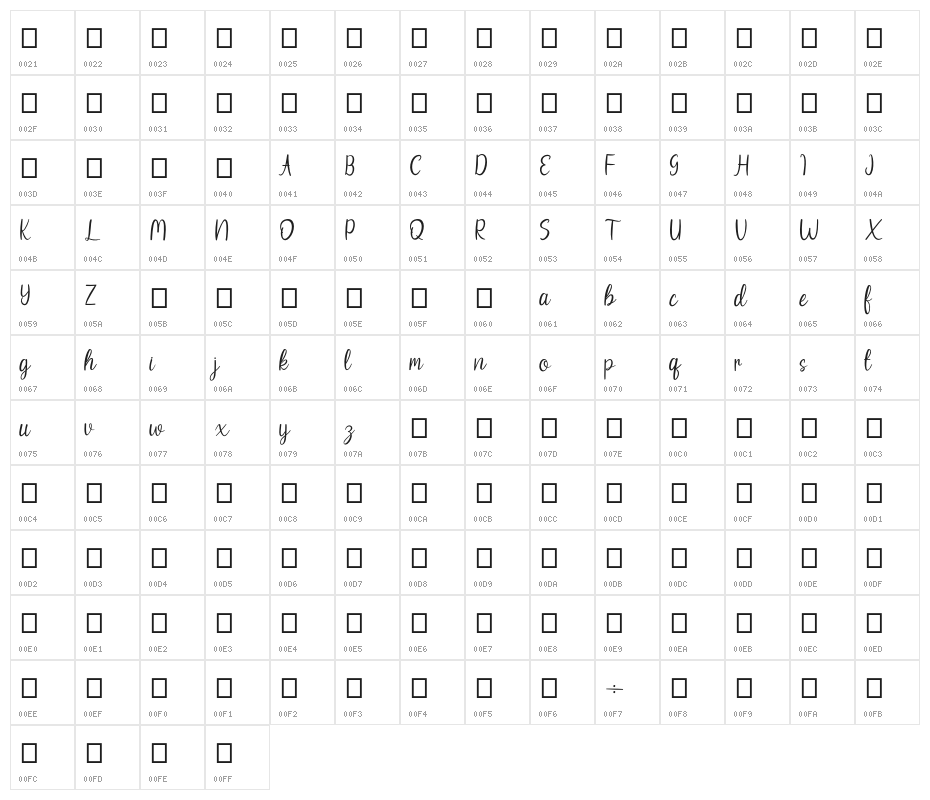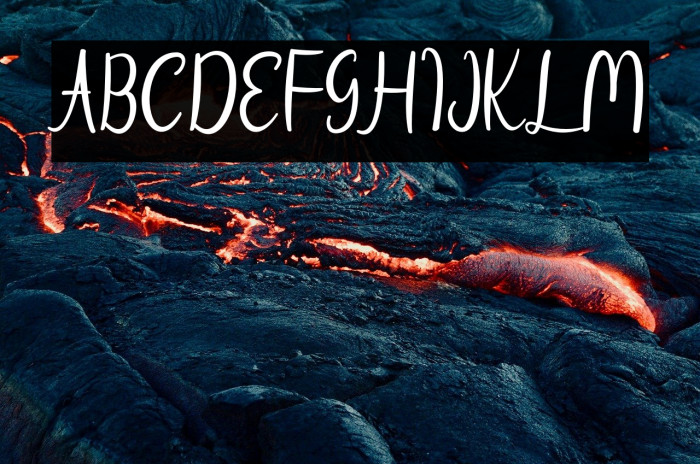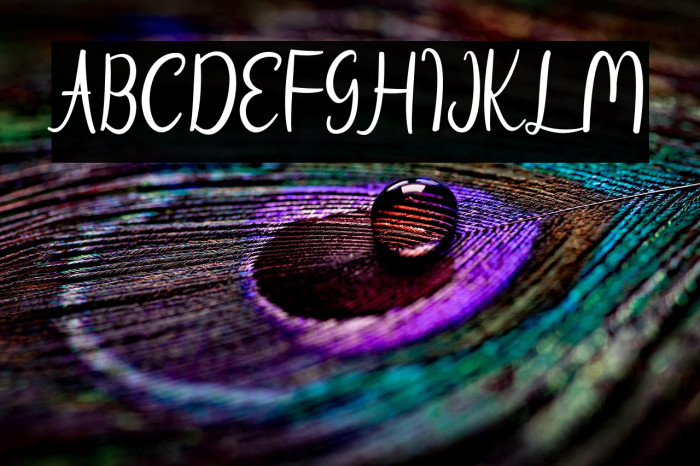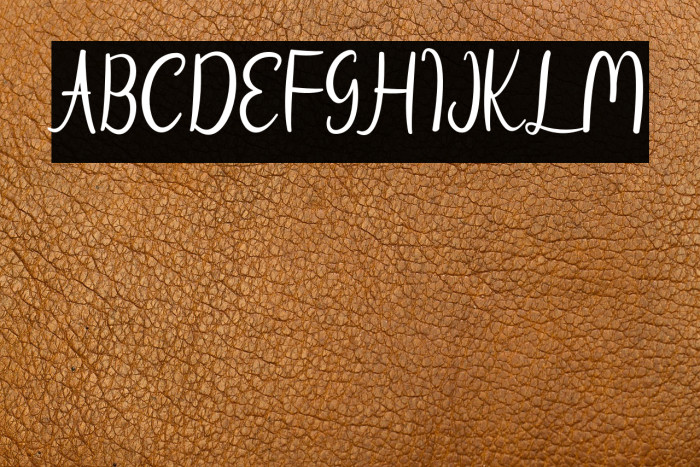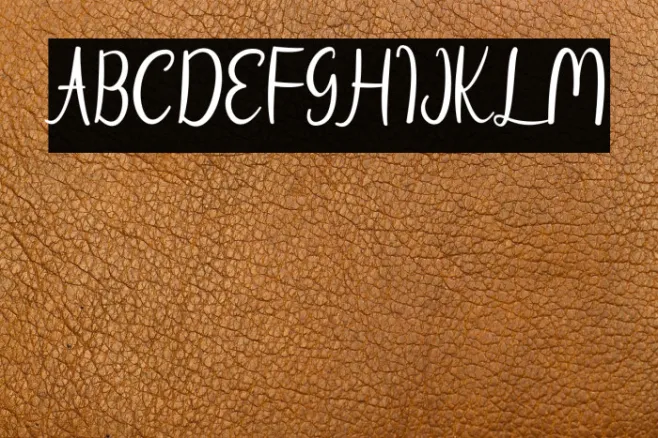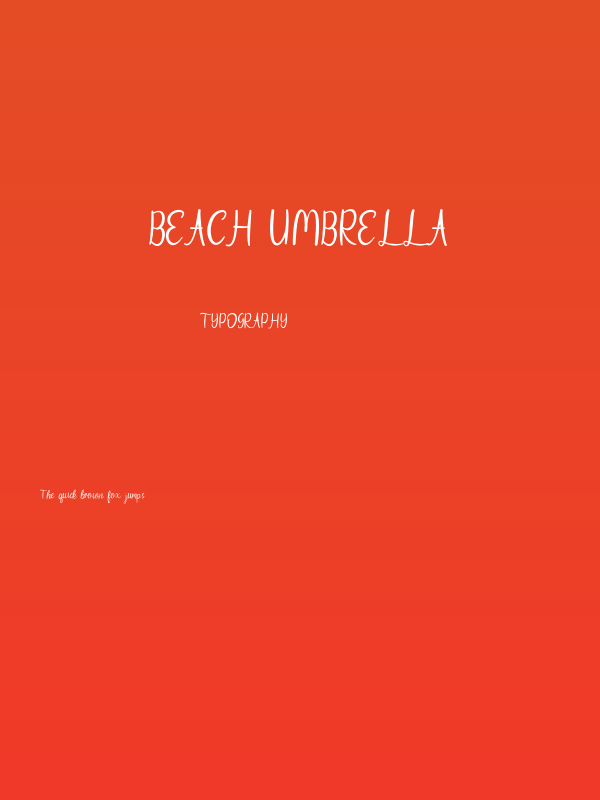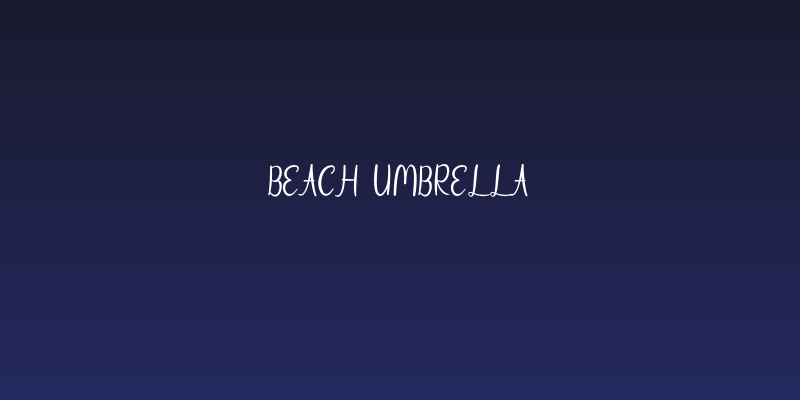
Beach Umbrella Font
Beach Umbrella Description
This font features a playful and casual script style, characterized by its flowing and connected letterforms. The uppercase letters have a whimsical flair, with some strokes extending beyond the baseline, adding a touch of elegance. The lowercase letters maintain a consistent flow, enhancing readability while retaining a handwritten feel. The overall design is smooth and rounded, with moderate contrast in stroke thickness, giving it a friendly and approachable appearance. This font lacks special characters, focusing solely on alphabetic characters, which makes it ideal for informal and creative projects.
| Proposed Projects | Ideal for greeting cards, invitations, personal branding, and creative projects. |